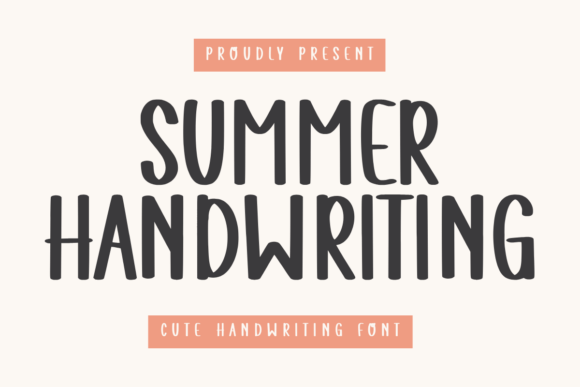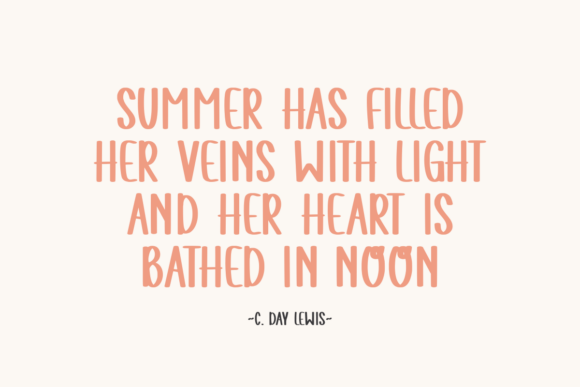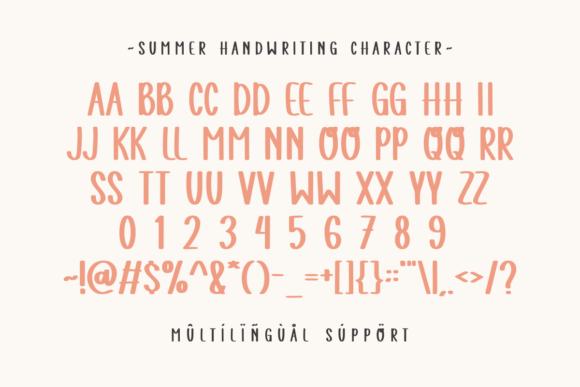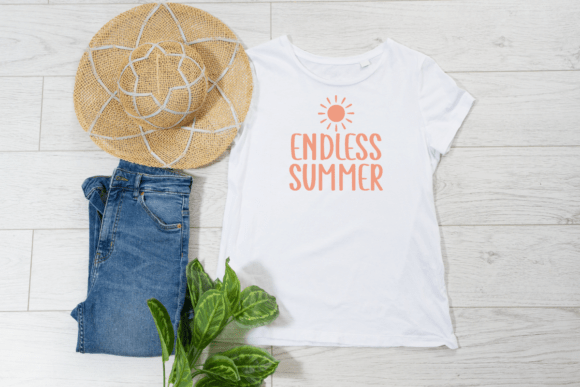
Summer Handwriting Font
About the Summer Handwriting Font
Make a bold statement with Summer Handwriting Font, a powerful and memorable font. Summer Handwriting is a charming handwriting font with a clean yet whimsical vibe. Featuring smooth curves and a hand-drawn feel, this font is perfect for romantic designs, wedding invitations, heartfelt branding, and elegant social media graphics. Its versatile style pairs a modern aesthetic with a touch of playful warmth, making it ideal for creative and love-inspired projects.
Summer Handwriting Font Usage Examples
Summer Handwriting Font Example